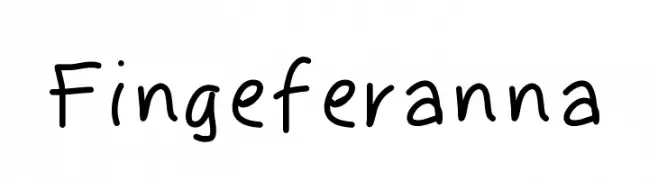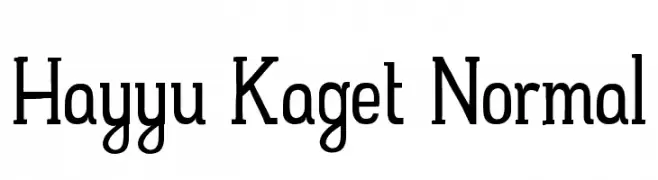
( Fonts by Adien Gunarta - fontasticindonesia.blogspot.com )
A modern serif font with bold, angular serifs and a classic touch.
A pixelated, retro-style font with a digital, blocky appearance.
A playful, informal handwritten font with irregular strokes and a casual vibe.
( vitadastudentidellemedie.blogspot.com )
A playful, handwritten font with a casual and informal style.
( Fonts by Maniackers Design - www.mksd.jp OFF SITE )
A playful, hand-drawn font with a whimsical and informal style.
( Fonts by Kimberly Geswein - kimberlygeswein.com )
A casual, handwritten font with a playful and dynamic style.